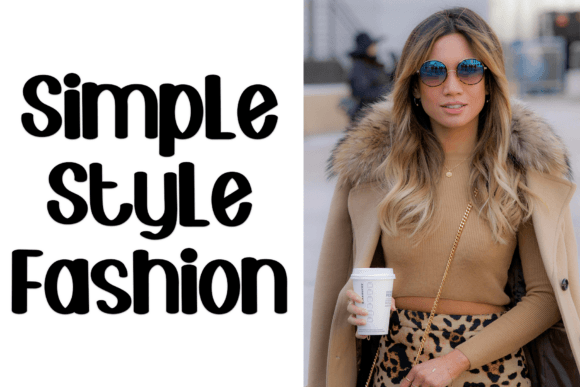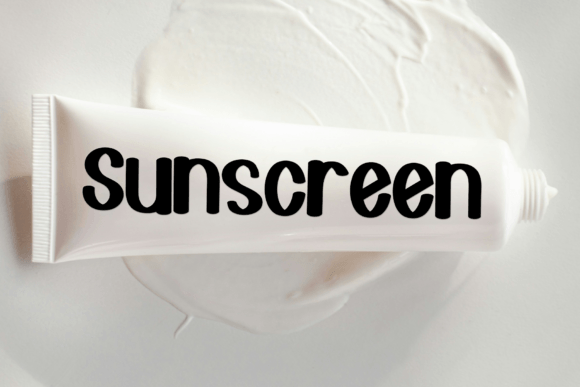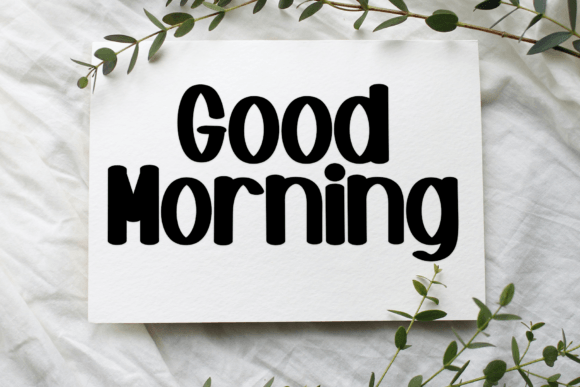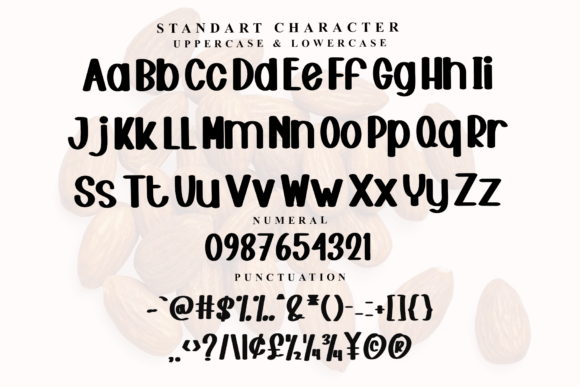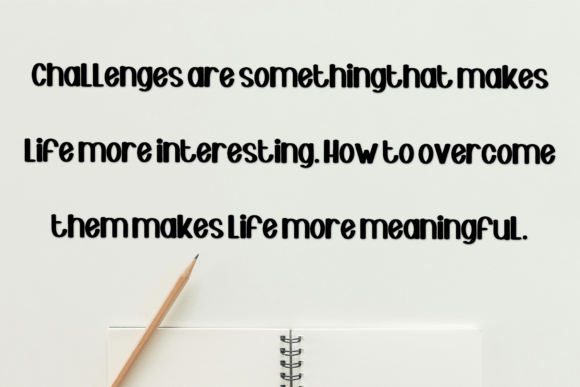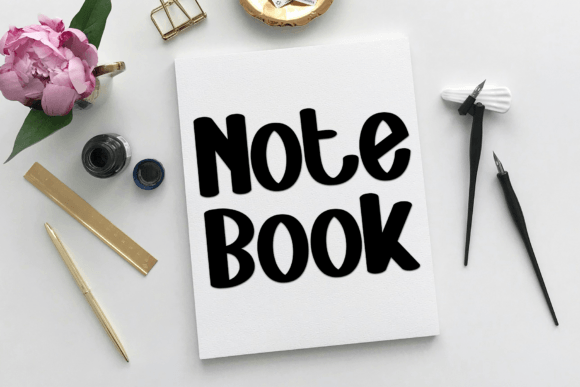
Unleash the Spookiness: Exploring the Comic Spooky Font
Are you looking for a font that adds a playful yet spooky touch to your designs? Look no further than the Comic Spooky Font! This fun, bold font is perfect for Halloween themes, party invitations, or any project that needs a lively and slightly spooky vibe. In this article, we’ll dive into the world of Comic Spooky, exploring its features, uses, and benefits for designers and crafters.
What is Comic Spooky Font?
Comic Spooky is a unique font that mimics the look of marker-drawn letters. Its playful design has a spooky twist, making it an excellent choice for projects that require a fun and eerie feel. The font’s bold and chunky letters are perfect for grabbing attention, while its slightly irregular lines and curves add a touch of whimsy.
Features of Comic Spooky Font
- Marker-drawn look: Comic Spooky has a distinctive marker-drawn look that sets it apart from other fonts.
- Playful and spooky: The font’s playful design has a spooky twist, making it perfect for Halloween themes or projects that need a lively and slightly spooky vibe.
- Bold and chunky: Comic Spooky’s bold and chunky letters are perfect for grabbing attention and making a statement.
- Easy to read: Despite its playful design, Comic Spooky is easy to read, making it suitable for use in a variety of projects.
Uses of Comic Spooky Font
Comic Spooky is a versatile font that can be used in a variety of projects, including:
- Halloween themes: Comic Spooky is perfect for Halloween-themed projects, such as party invitations, decorations, and social media graphics.
- Party invitations: The font’s playful and spooky design makes it an excellent choice for party invitations, especially for Halloween or themed parties.
- Signs and posters: Comic Spooky’s bold and chunky letters make it perfect for use in signs and posters that need to grab attention.
- Social media graphics: The font’s fun and playful design makes it suitable for use in social media graphics, such as Facebook posts, Instagram stories, and Twitter headers.
Comic Spooky offers several benefits for designers and crafters, including:
- Unique design: Comic Spooky’s unique design sets it apart from other fonts, making it an excellent choice for designers looking to add a touch of personality to their projects.
- Versatile: Comic Spooky is a versatile font that can be used in a variety of projects, from Halloween themes to party invitations.
- Time-saving: The font’s bold and chunky letters make it easy to create eye-catching designs quickly, saving designers and crafters time and effort.
Tips for Using Comic Spooky Font
Here are some tips for using Comic Spooky font effectively:
- Use it sparingly: Comic Spooky is a bold font, so use it sparingly to avoid overwhelming your design.
- Pair it with other fonts: Pair Comic Spooky with other fonts to create a unique and visually appealing design.
- Experiment with colors: Experiment with different colors to find the perfect combination that complements your design.
- Have fun: Most importantly, have fun with Comic Spooky! The font’s playful design is perfect for adding a touch of personality to your projects.
Comic Spooky is a fun and versatile font that’s perfect for designers and crafters looking to add a playful yet spooky touch to their projects. With its marker-drawn look, bold and chunky letters, and easy-to-read design, Comic Spooky is an excellent choice for Halloween themes, party invitations, signs and posters, and social media graphics. Whether you’re a seasoned designer or a crafter, Comic Spooky is sure to inspire your creativity and add a touch of personality to your designs.